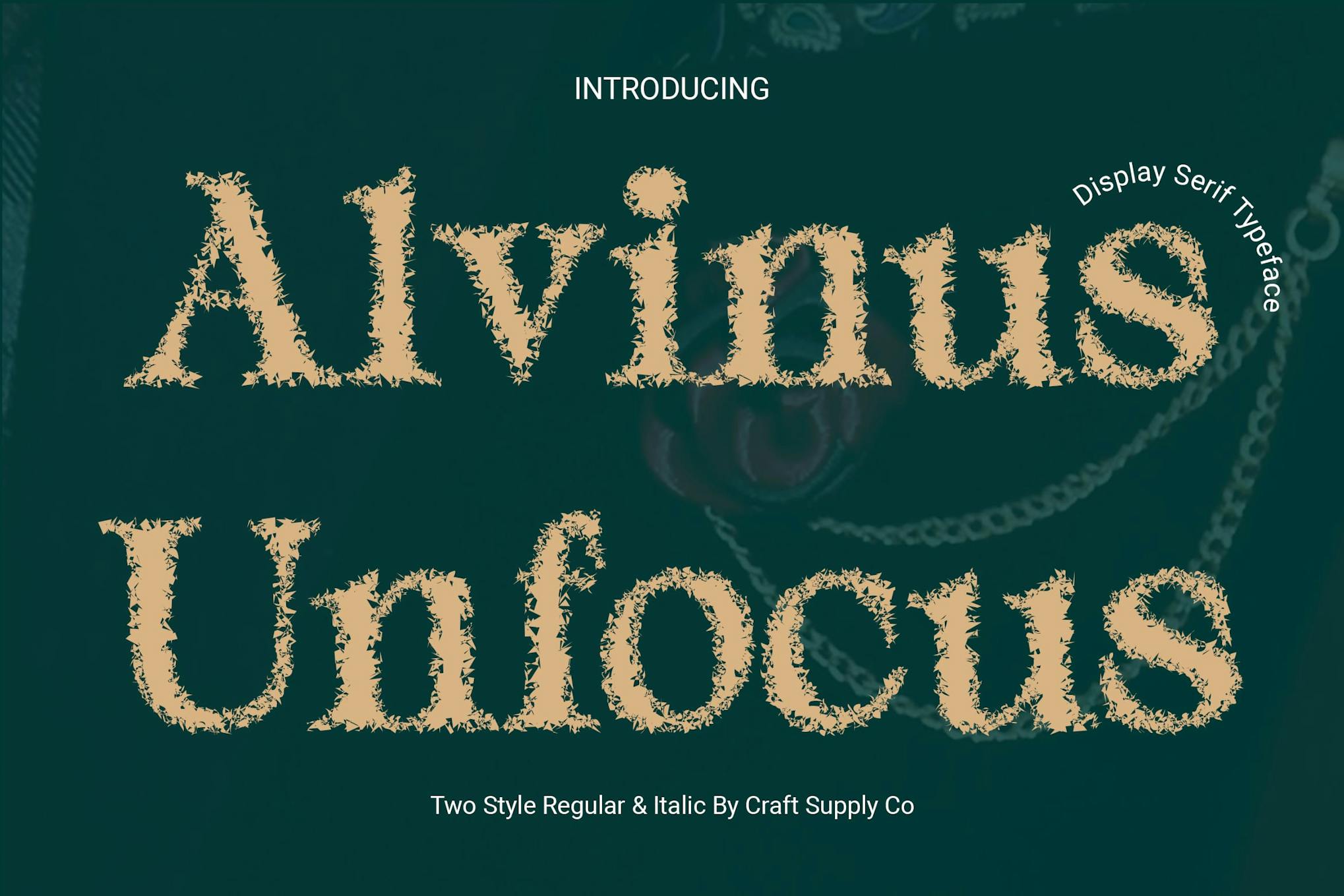
Alvinus Unfocus Font
Alvinus Unfocus Font illuminates ancient wisdom publications, scholarly theological materials, monastery heritage exhibitions, classical philosophy texts, medieval manuscript reproductions, religious ceremonial programs, academic theological journals, spiritual retreat centers, contemplative abbey branding, ancient language studies, scholarly research publications, and sacred knowledge preservation where divine wisdom and contemplative unfocus create profound spiritual learning experiences.
This enlightened typeface generates excitement through its perfect embodiment of divine wisdom and scholarly contemplation that creates typography channeling centuries of spiritual knowledge and academic excellence. Alvinus Unfocus Font captures the essence of sacred learning with its softly illuminated letterforms that suggest the gentle glow of candlelit scriptoriums and the peaceful atmosphere of monastic libraries where ancient wisdom was preserved and transmitted. The font's scholarly design approach incorporates elements that evoke medieval illuminated manuscripts, theological precision, and the contemplative focus required for deep spiritual study. Its distinctive character reflects the reverence, scholarship, and divine inspiration that define authentic theological education and spiritual wisdom traditions.
The Alvinus Unfocus Font family encompasses multiple scholarly variations including Regular, Light, Medium, Bold, and Illuminated versions, each maintaining the font's characteristic divine wisdom while offering different levels of spiritual impact. The collection features scholarly blur effects, contemplative atmospheric treatments, and sacred textures that enhance its theological aesthetic. Additional elements include religious symbols, scholarly ornaments, illuminated decorative borders, and divine flourishes that reinforce the font's connection to sacred learning and theological scholarship.
Theological institutions and spiritual education organizations consistently select Alvinus Unfocus Font Free Download for projects requiring typography that communicates divine wisdom and scholarly theological authority. This remarkable typeface excels in applications where establishing spiritual credibility and conveying sacred knowledge are essential for religious and academic success. The font's divine scholarly qualities make it particularly effective for theological seminaries, religious publishing houses, and spiritual education programs targeting audiences who appreciate sacred learning and divine wisdom traditions.
Whether you're designing theological educational materials, creating religious ceremonial publications, developing monastery heritage exhibitions, or crafting sacred knowledge preservation projects, Alvinus Unfocus Font delivers unmatched theological authenticity. Its ability to convey divine wisdom, scholarly reverence, and spiritual contemplation makes it invaluable for religious educators seeking typography that genuinely honors sacred learning traditions. The font's illuminated presence ensures your designs will communicate the divine scholarship and contemplative wisdom that define exceptional theological communications and sacred educational experiences.